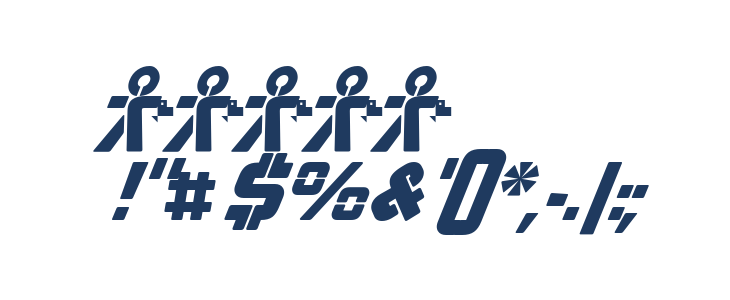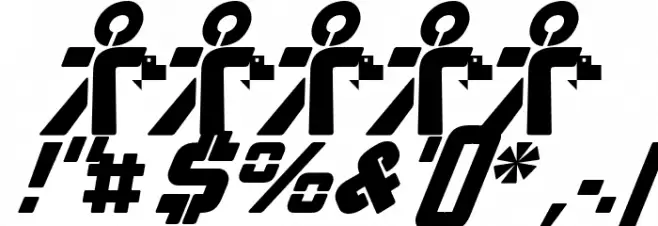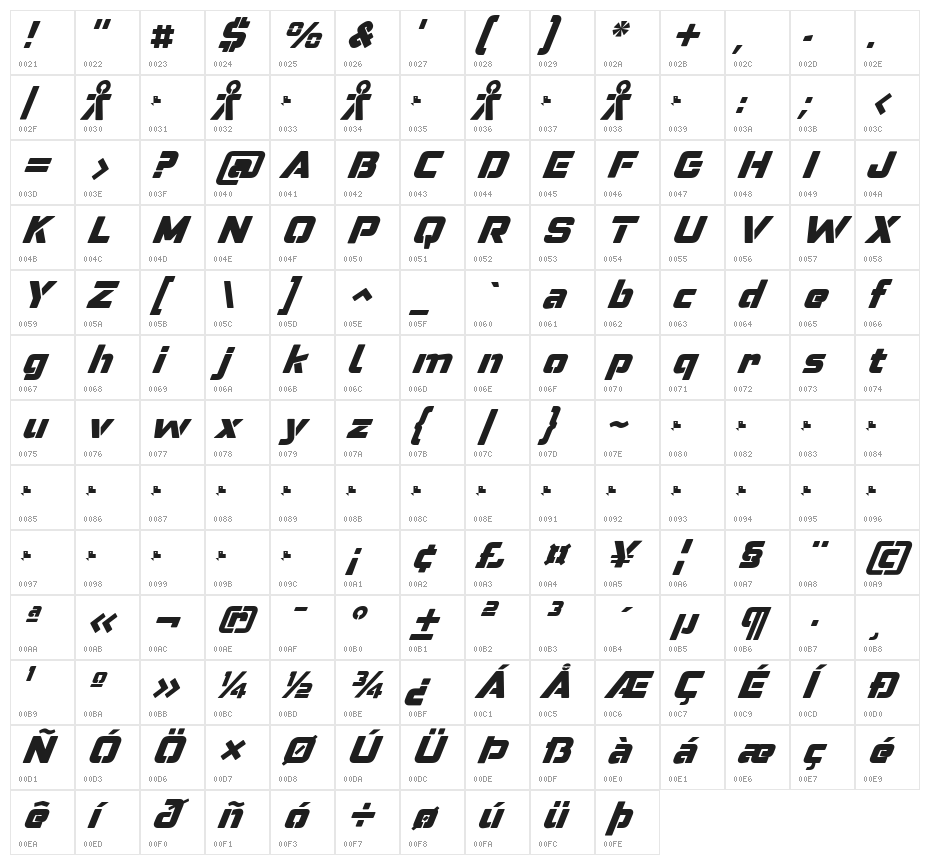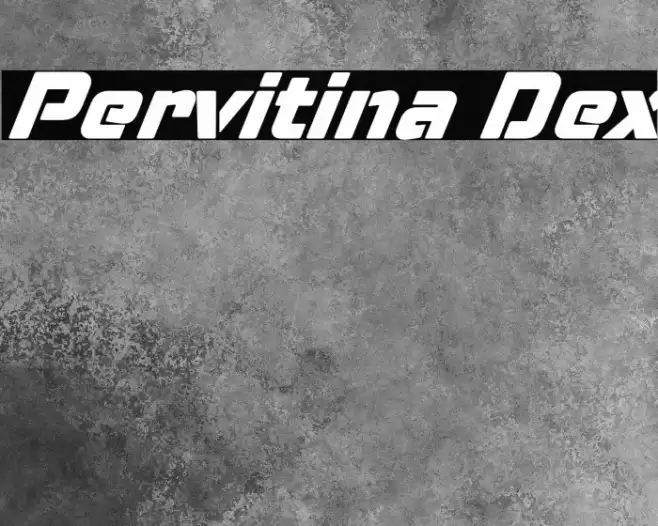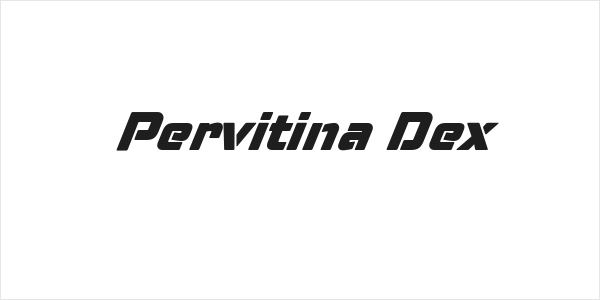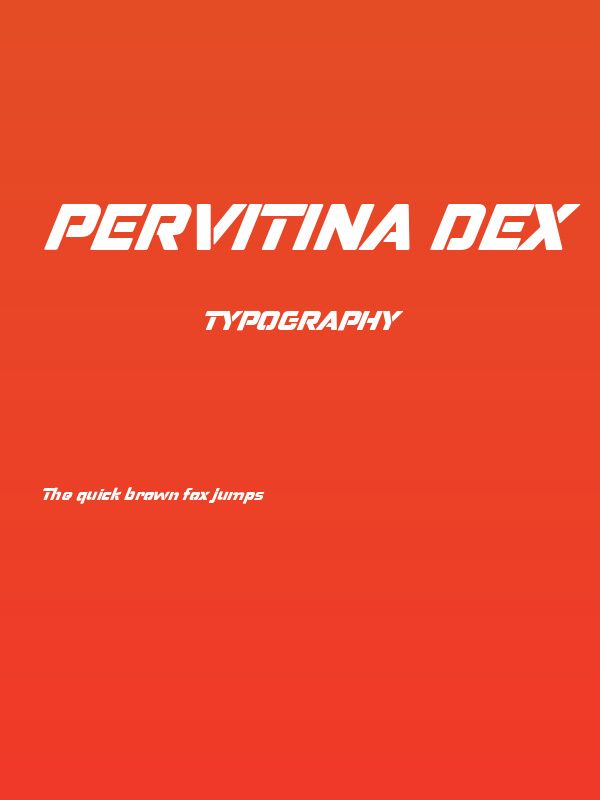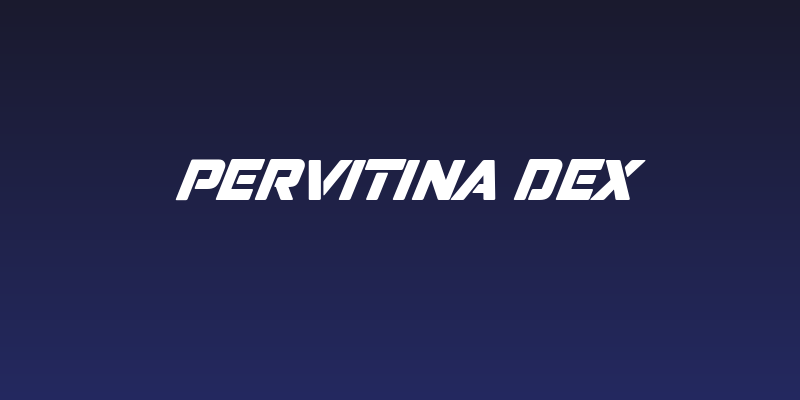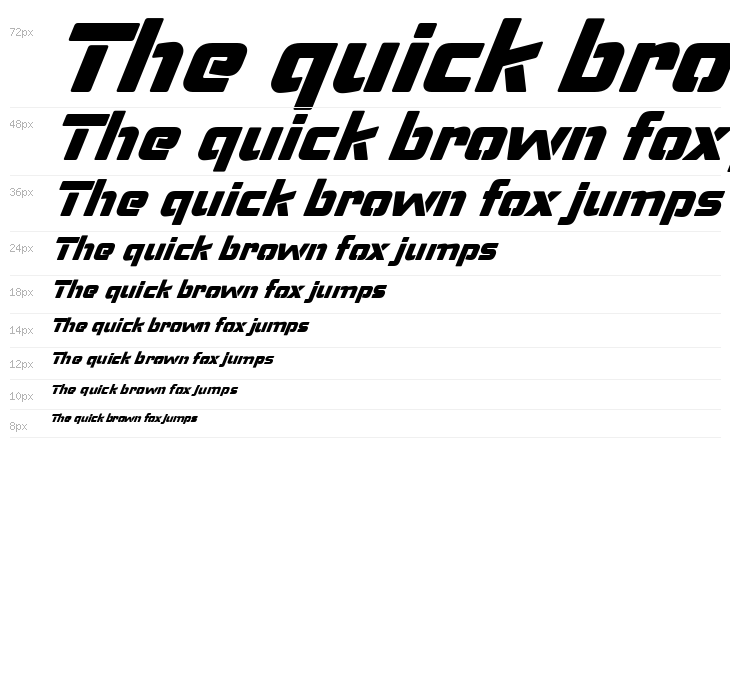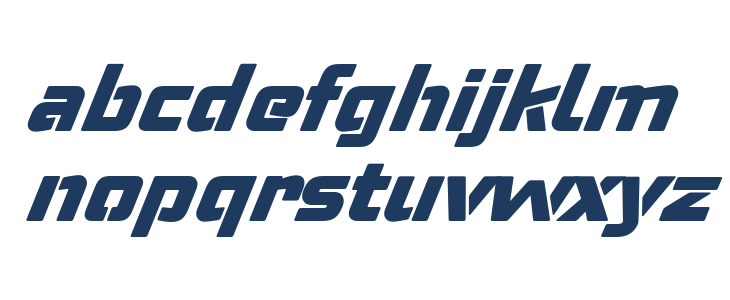
Pervitina Dex Font
Pervitina Dex Description
This font features a bold, angular design with a futuristic and dynamic appearance. The characters are slanted, giving a sense of motion and speed. The uppercase and lowercase letters maintain a consistent style, with sharp edges and geometric shapes. The numbers and special characters follow the same aesthetic, ensuring uniformity across all glyphs. This font is ideal for projects that require a modern and edgy look, such as technology branding, sports team logos, or sci-fi themed designs.
| Proposed Projects | Ideal for technology branding, sports team logos, sci-fi themed designs, and dynamic posters. |